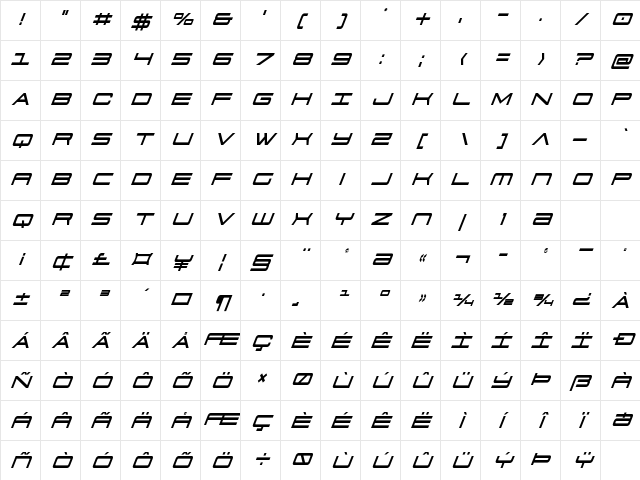
911 Porscha Condensed Italic Free Font
911 Porscha Condensed Italic Condensed Italic
Style: Condensed Italic
Designer: Daniel Zadorozny
Year: 2015 (Wed, 4th Mar 2015)
Complete 911 Porscha Condensed Italic glyph index. Displaying only characters natively supported by 911 Porscha Condensed Italic font.
Design Context for 911 Porscha Condensed Italic
911 Porscha Condensed Italic is a composed and adaptable typeface that performs quietly and consistently across a wide range of design contexts. The slanted form adds forward momentum and visual energy. Its narrow stance lets it pack a punch even in space-constrained designs.
A practical choice for tight layouts, multi-column editorial design, and space-efficient signage.
Pro Tip: Use 911 Porscha Condensed Italic for emphasis, pull quotes, and subheadings where its slanted energy can add rhythm to the layout.